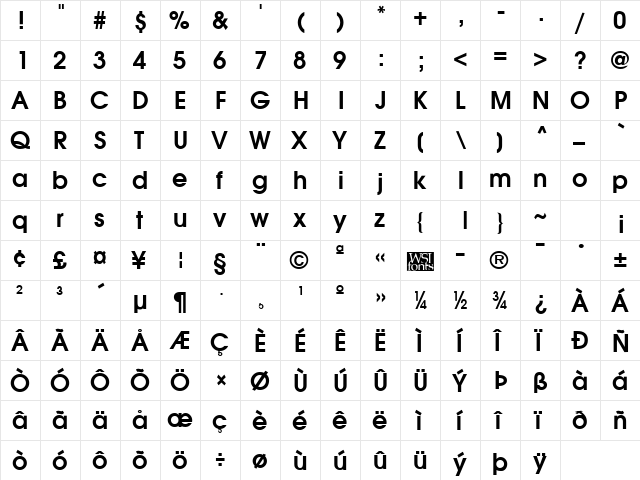
Avian Bold Font Preview
Avian Bold
Avian Bold Font Details
Design Context for Avian Typeface
Avian is a composed and adaptable typeface that performs quietly and consistently across a wide range of design contexts. The heavy weight commands attention and anchors typographic hierarchies.